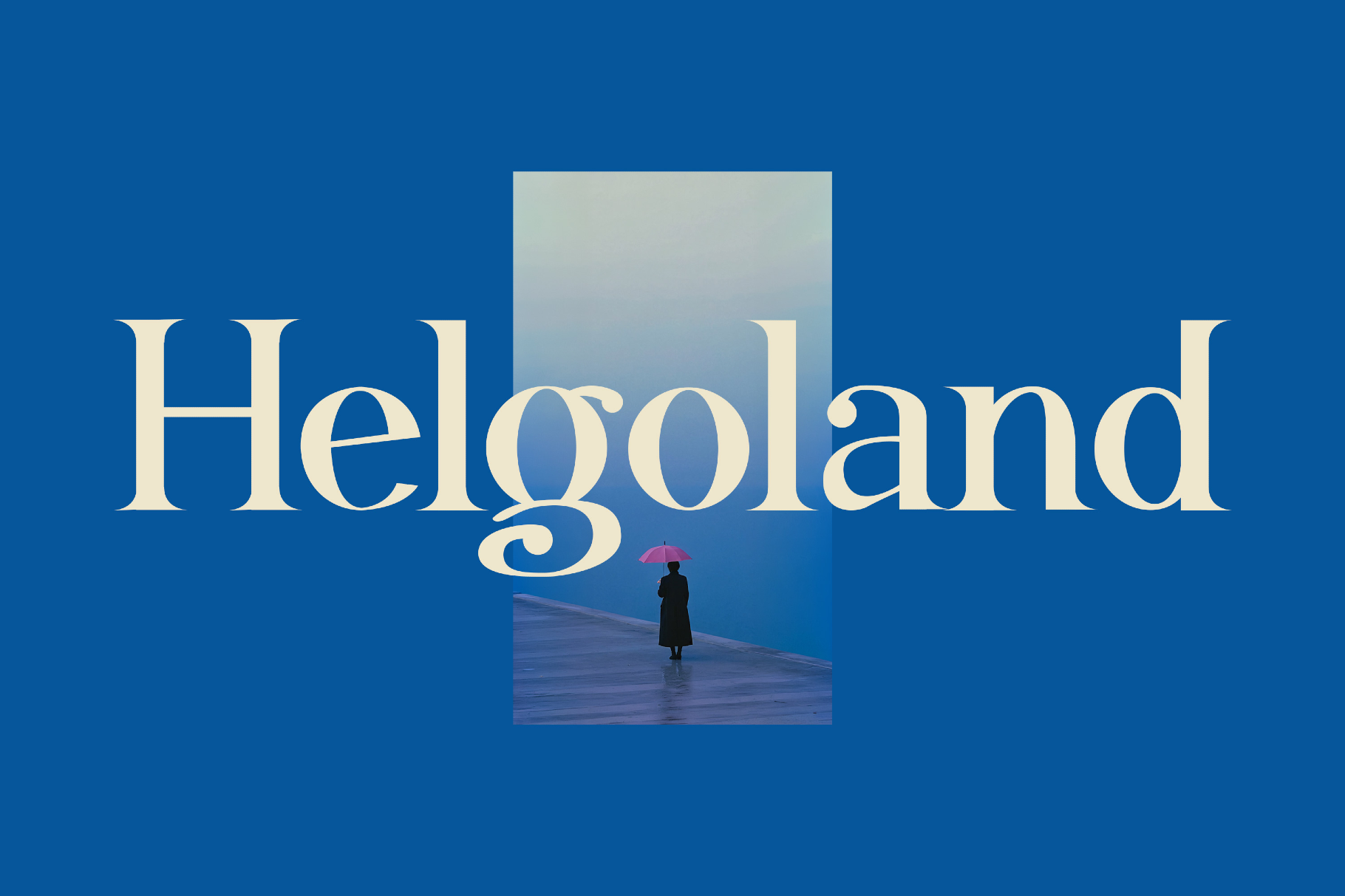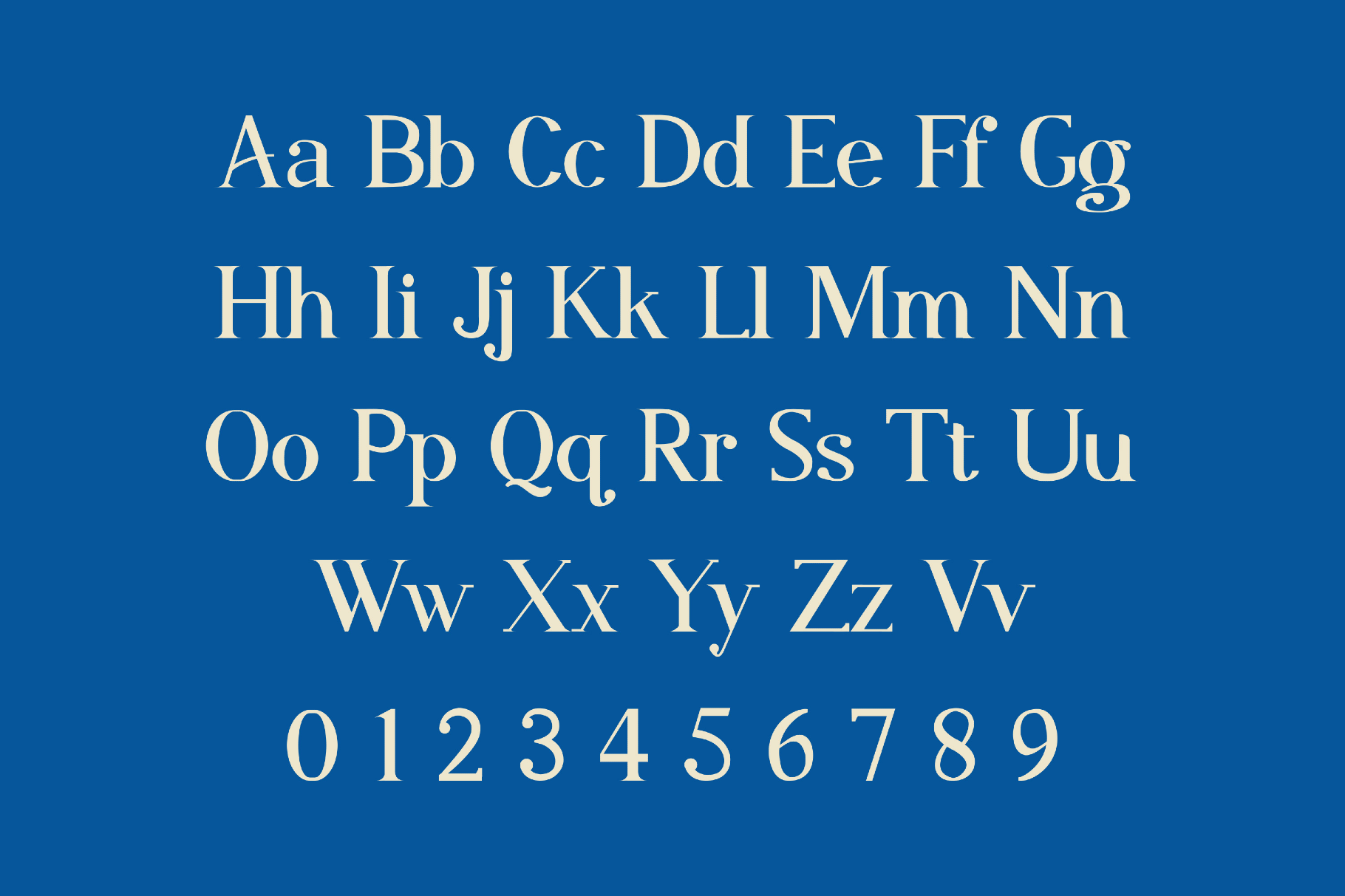
Helgoland | Elegant Serif
Helgoland
Helgoland pairs a crisp, high-contrast font with sharp bracketed serifs and compact proportions that remind one of postwar European book jackets and museum title cards. This contemporary editorial and wedding font works for headlines, storefront signage, wordmarks, book or magazine covers, shop and café branding, packaging, posters, invitations, refined social media titles, and web hero typography that needs a composed, readable voice at large sizes.
- International characters and extra symbols with support across extended Latin scripts.
- A set of ligatures.